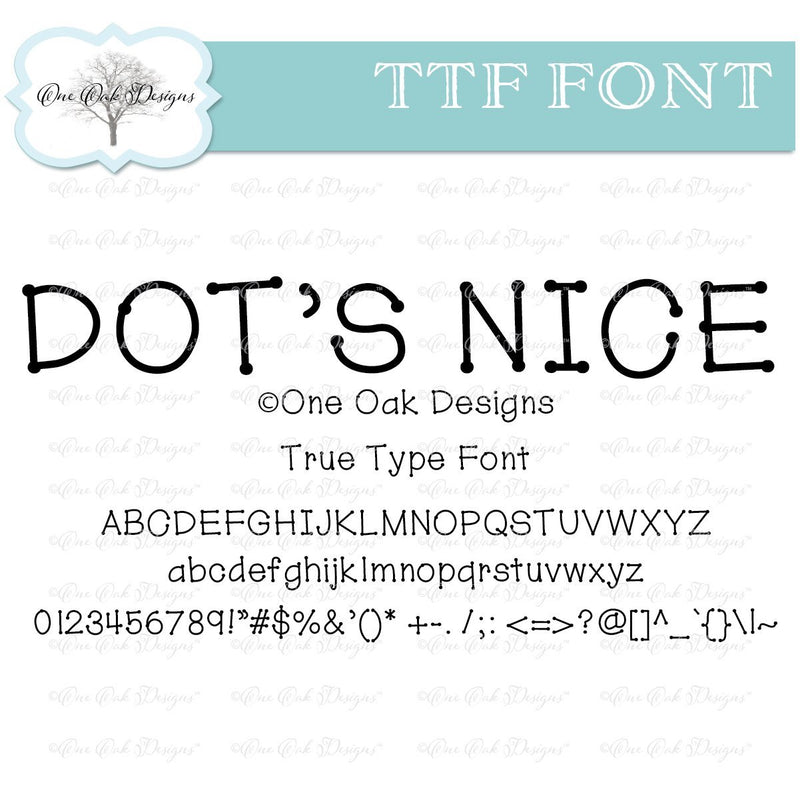
Dot's Nice - A Dotty Handwritten Font
The font includes all 26 letters in both upper and lower case, as well as all standard keyboard punctuation. Please see picture for all included characters.